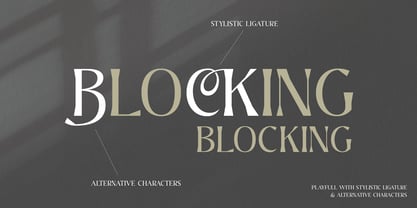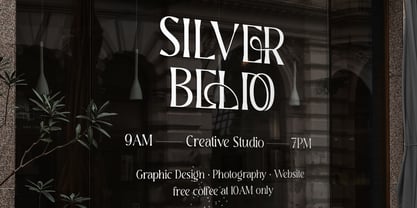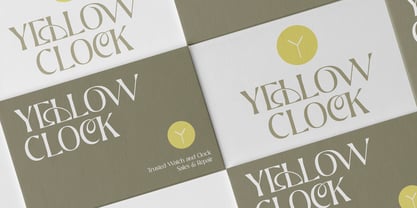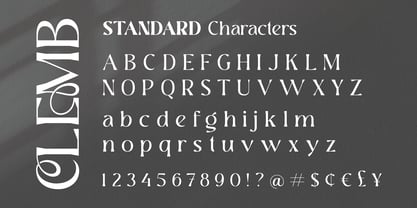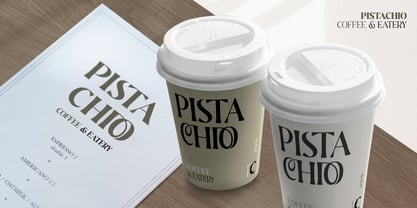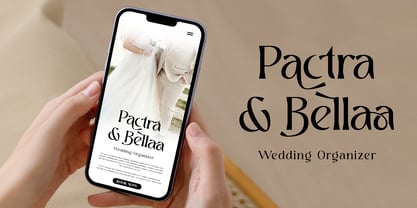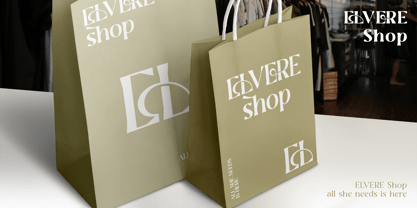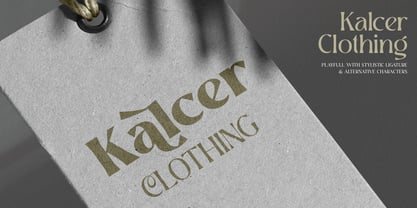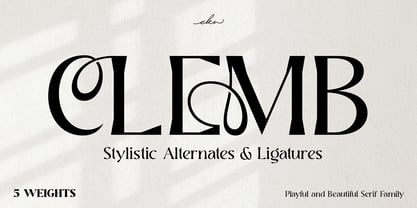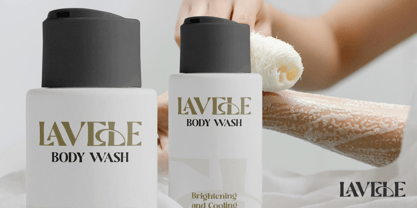
Clemb
La famille de polices Clemb a été conçue par Putu Eka Hermawan et publiée par Ekahermawan. Clemb contient 5 styles et options de package familial. En savoir plus sur cette famille
CLEMB – A Refined Serif with Artistic Elegance Meet CLEMB, a striking serif typeface designed to transform ordinary typography into something truly unforgettable. With its flowing curves, refined high-contrast strokes, distinctive alternates, and expressive ligatures, CLEMB instantly elevates any design with sophistication and visual impact. This is not just another serif—it’s a statement piece that commands attention while maintaining elegance and balance. Crafted to move effortlessly between classic and contemporary styles, CLEMB gives you the freedom to create everything from clean, minimal layouts to dramatic, decorative compositions. The unique letterforms and graceful details make headlines look powerful, logos feel custom-made, and branding appear polished and high-end. Whether you’re designing for fashion labels, luxury packaging, editorial spreads, wedding invitations, or social media graphics, CLEMB brings a refined yet modern touch that stands out beautifully. The family includes five weights, complete uppercase and lowercase characters, numbers, punctuation, multilingual support, stylistic alternates, and beautifully crafted ligatures. With PUA encoding for easy access to special characters in most design software, you can quickly unlock stunning letter combinations and create typography that feels intentional and bespoke. If you want your typography to feel elevated, artistic, and memorable, CLEMB is the perfect choice. Make every word look designed, not just typed.